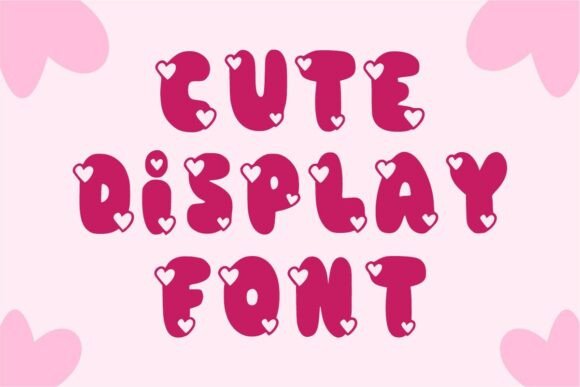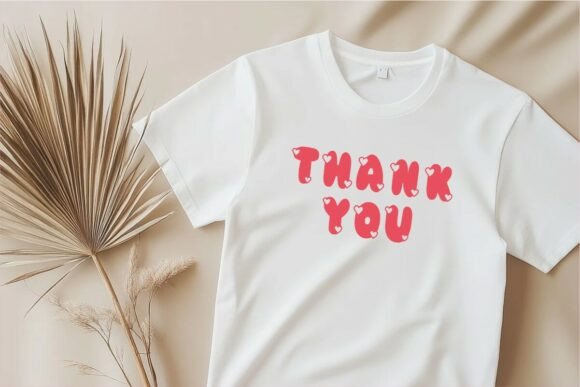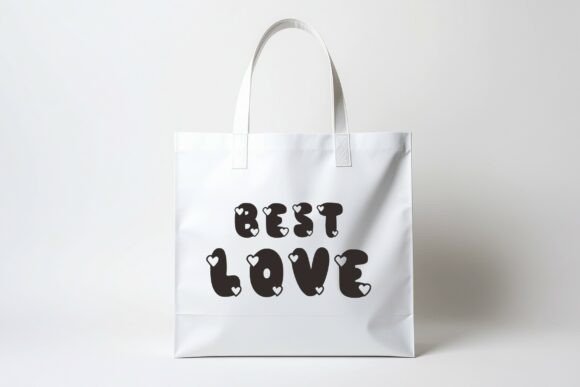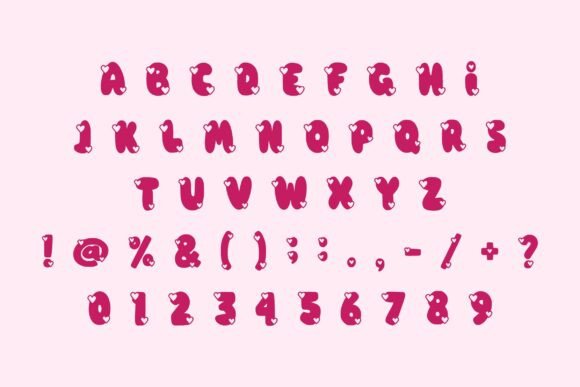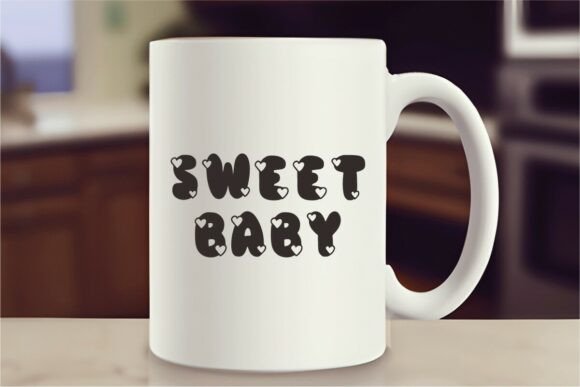
Discover the Charm of Dealova Font: A Cute and Romantic Typeface
Are you looking for a font that exudes warmth, affection, and a touch of whimsy? Look no further than the Dealova font, a charming and “bubbly” decorative typeface that is sure to capture the hearts of designers and crafters alike. In this article, we’ll dive into the world of Dealova font, exploring its unique features, uses, and benefits.
What is Dealova Font?
Dealova font is a decorative typeface that is defined as “A Cute Font.” It features thick, soft letterforms adorned with tiny, whimsical hearts that float around the characters, giving your text an instant “love at first sight” appeal. The font captures a sense of joyful innocence, making it feel like a hand-drawn doodle from a secret admirer’s notebook.
Key Features of Dealova Font
The Dealova typeface is characterized by its rounded, plump anatomy, which ensures that every word feels friendly, soft, and inviting. Some of the key features of Dealova font include:
- Thick, soft letterforms that give the font a warm and cozy feel
- Tiny, whimsical hearts that float around the characters, adding a touch of romance and playfulness
- Rounded, plump anatomy that makes every word feel friendly and approachable
Uses of Dealova Font
The Dealova font is perfect for a variety of design projects, including:
- Romantic occasions: Use Dealova font to create beautiful Valentine’s Day promotions, wedding planning blogs, and personalized gift tags.
- Feminine branding: The Dealova typeface is a top choice for brands that want to convey a sense of warmth, affection, and playfulness.
- Nursery decor: Dealova font is a fantastic choice for nursery decor, children’s birthday invitations, and boutique bakery packaging where a “sweet” touch is required.
Tips for Using Dealova Font
To get the most out of Dealova font, try the following tips:
- Use a palette of soft pinks, deep purples, or creamy whites to lean into the font’s romantic nature.
- Pair Dealova font with other fonts that complement its playful and whimsical feel.
- Experiment with different sizes and styles to add visual interest to your design.
Benefits of Using Dealova Font
There are many benefits to using Dealova font in your design projects, including:
- Instant recognition: The Dealova font is sure to grab attention and leave a lasting impression on your audience.
- Emotional connection: The font’s warm and affectionate feel can help create an emotional connection with your audience.
- Versatility: Dealova font can be used in a variety of design projects, from romantic occasions to feminine branding.
In conclusion, Dealova font is a charming and “bubbly” decorative typeface that is sure to capture the hearts of designers and crafters alike. With its unique features, versatility, and emotional appeal, Dealova font is a top choice for a variety of design projects. Whether you’re looking to create romantic promotions, feminine branding, or nursery decor, Dealova font is sure to add a touch of warmth, affection, and playfulness to your design.